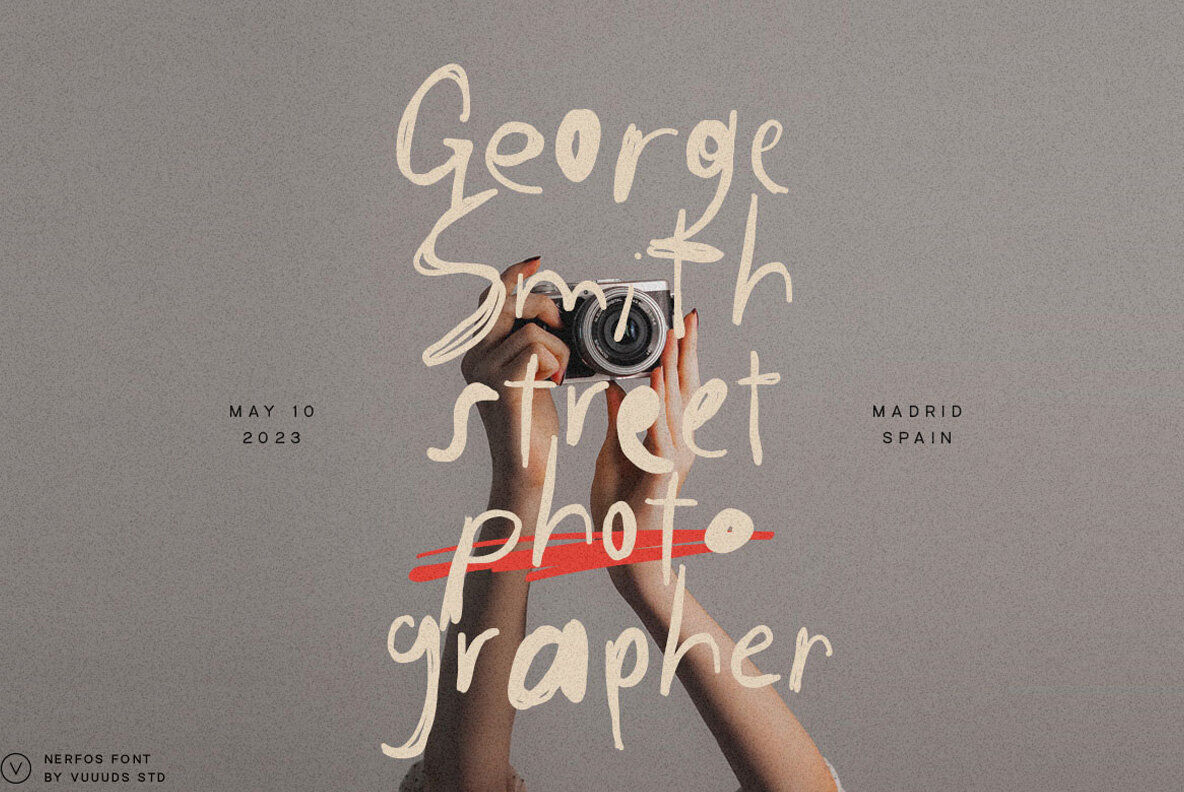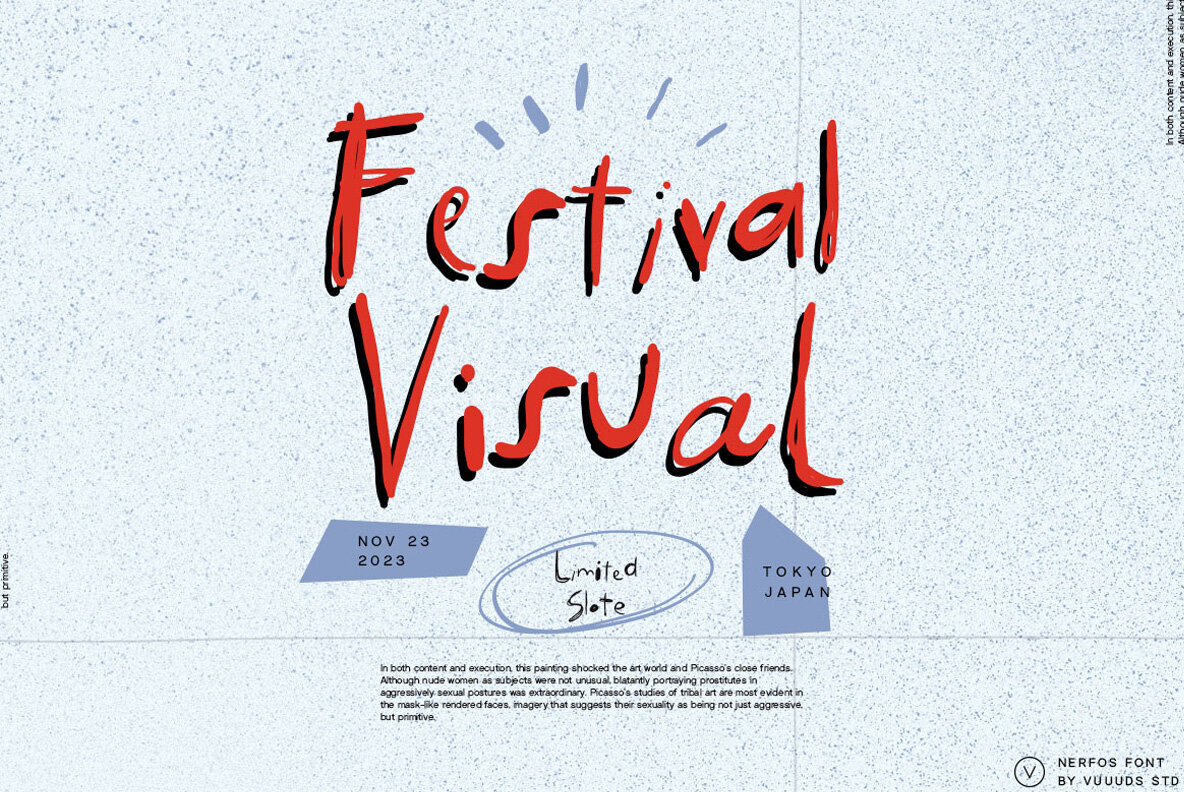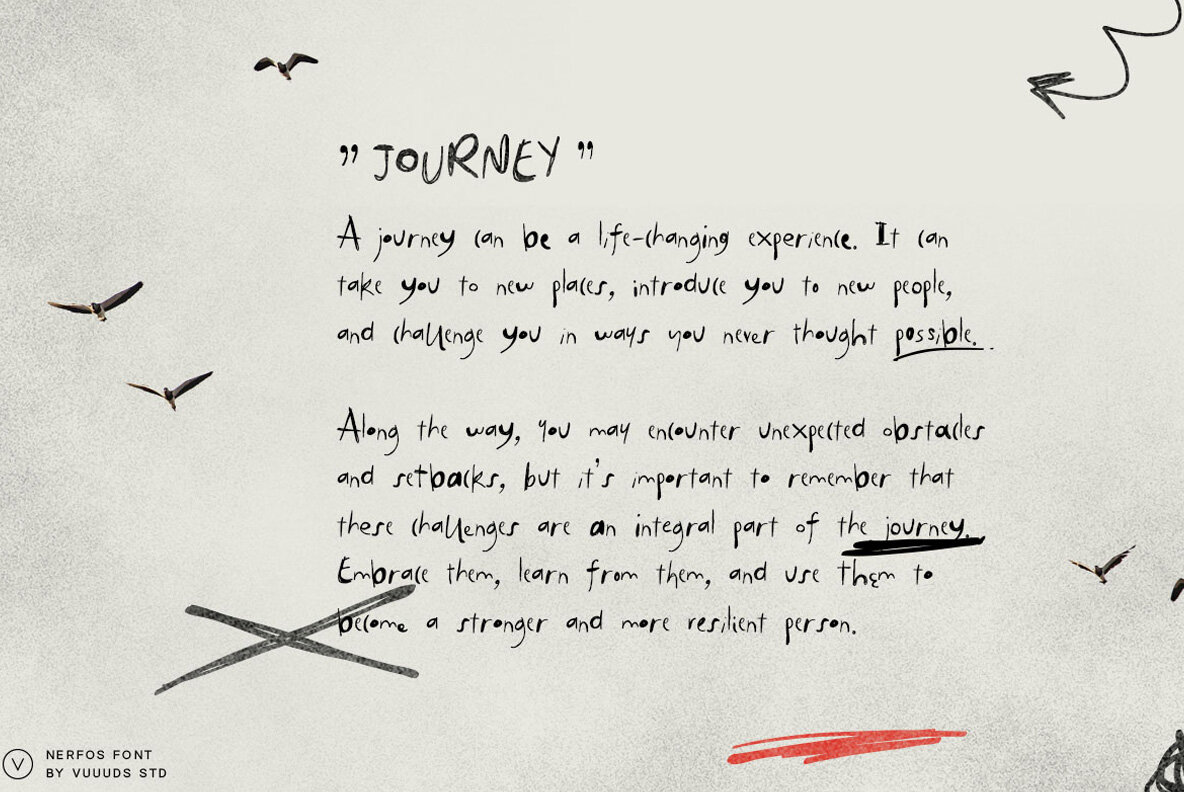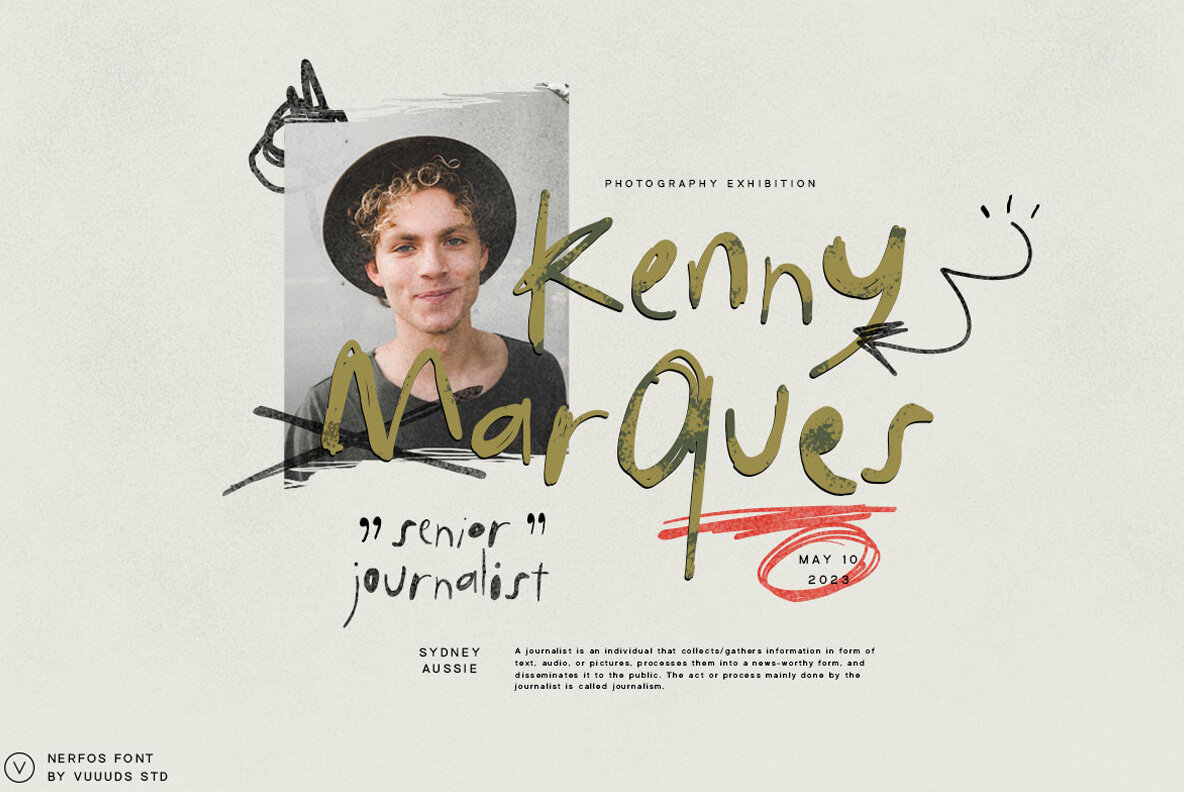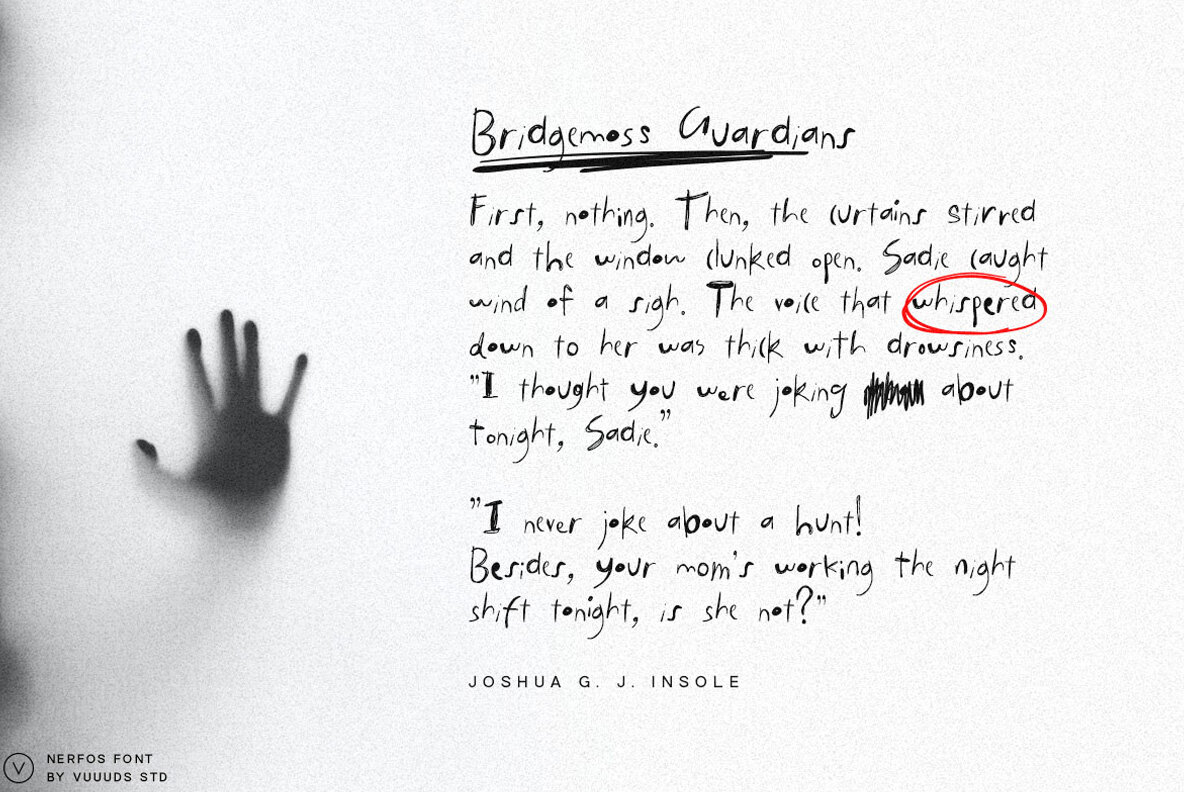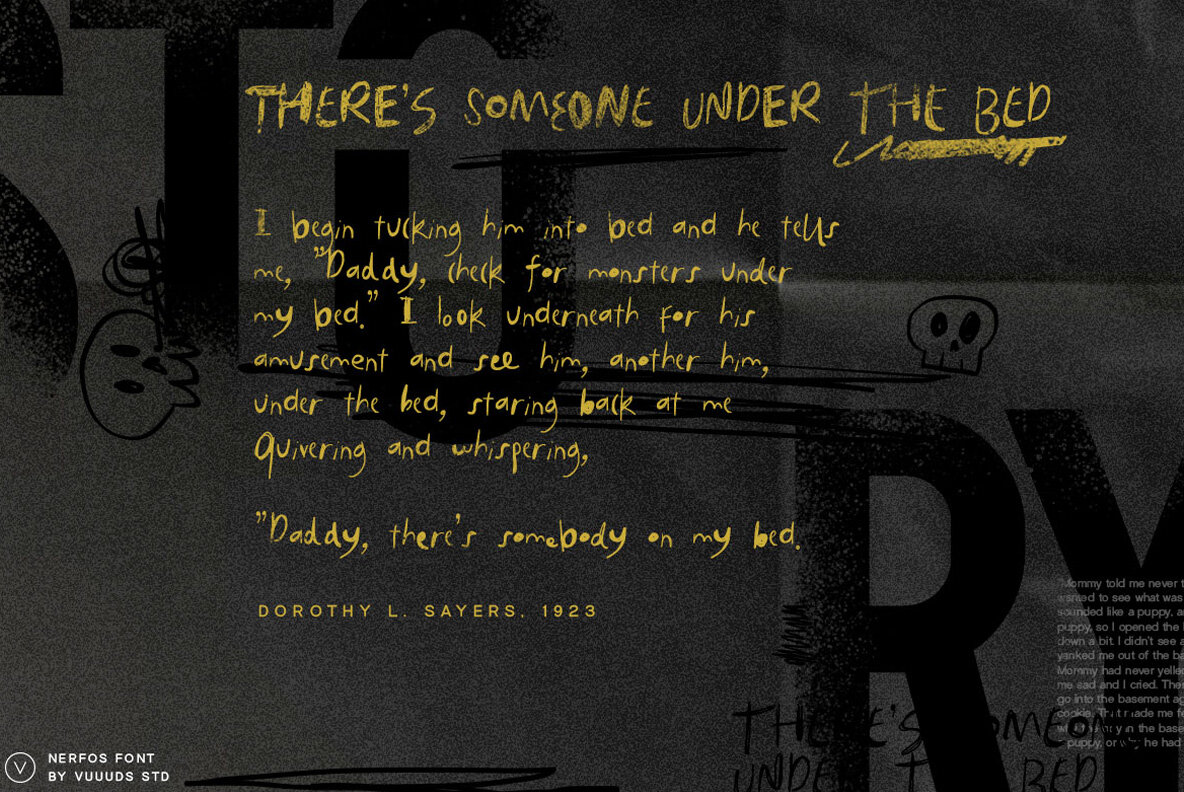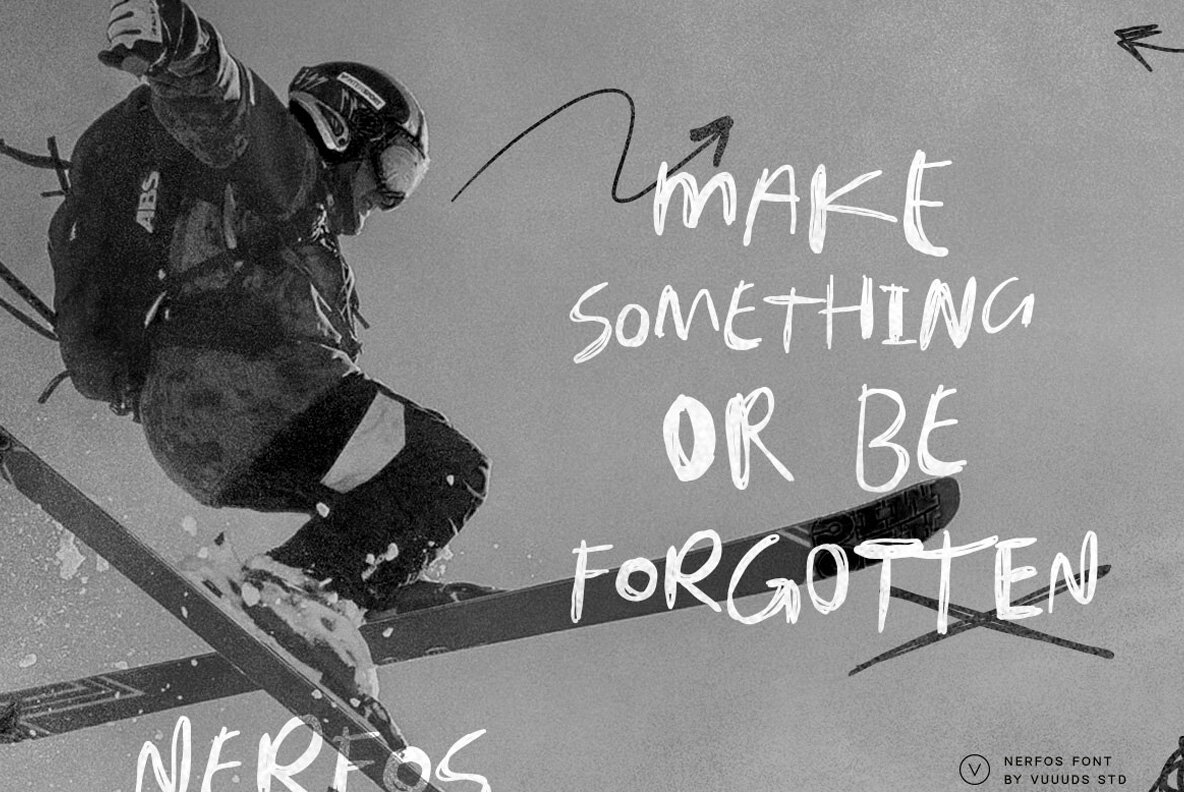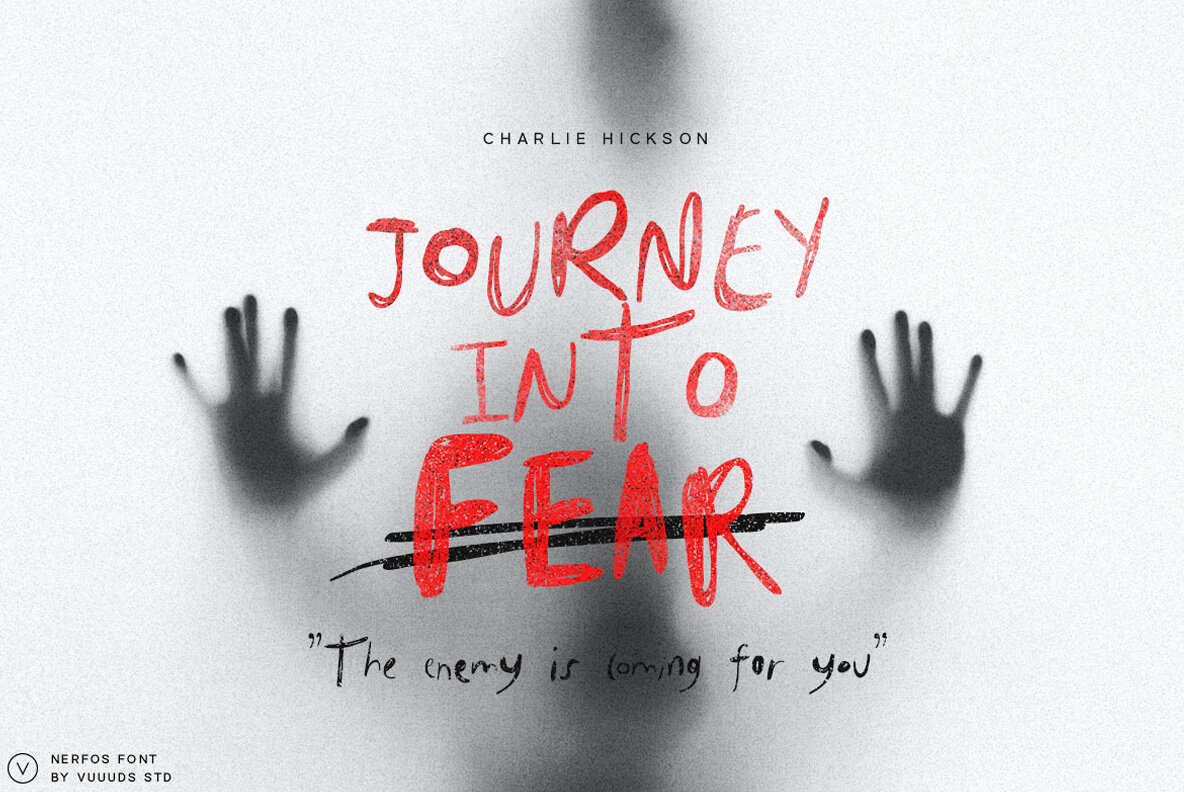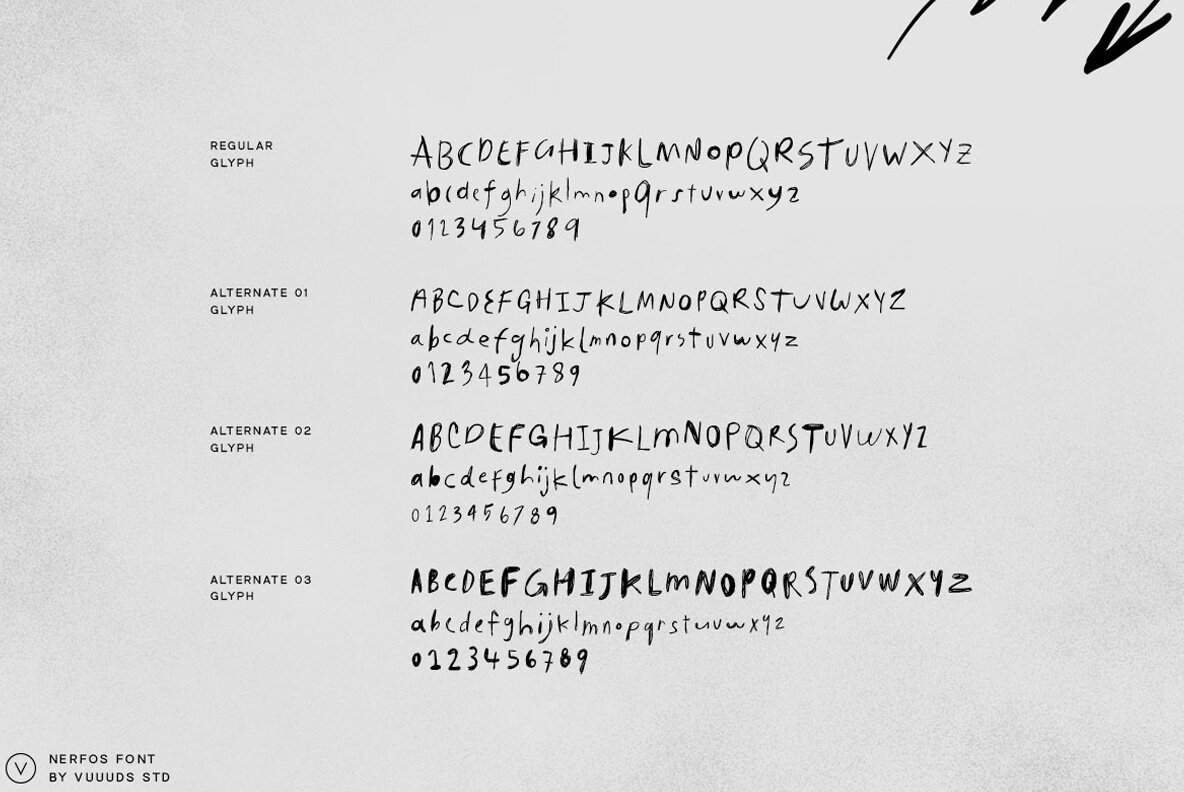
Nerfos Font
Introducing Nerfos Font, a modern and experimental handwritten gem that brings a unique flair to your projects. Imagine the artistry of a skilled calligrapher, effortlessly painting each letter with distinct character and charm. That's the essence of Nerfos – a font where every single letter has been meticulously crafted for a truly one-of-a-kind look.
Nerfos comes with stunning alternate glyphs that add an extra layer of creativity to your designs. Accessing these alternate glyphs is easy, whether you're using Font Book (for Mac users) or Windows Character Map (for Windows users). A helpful tutorial link is included in the zip file to guide you through the process, making it a breeze to unlock Nerfos' full potential. Designed by the talented Agung Syaifudin, this font is a testament to the beauty of artistic experimentation.